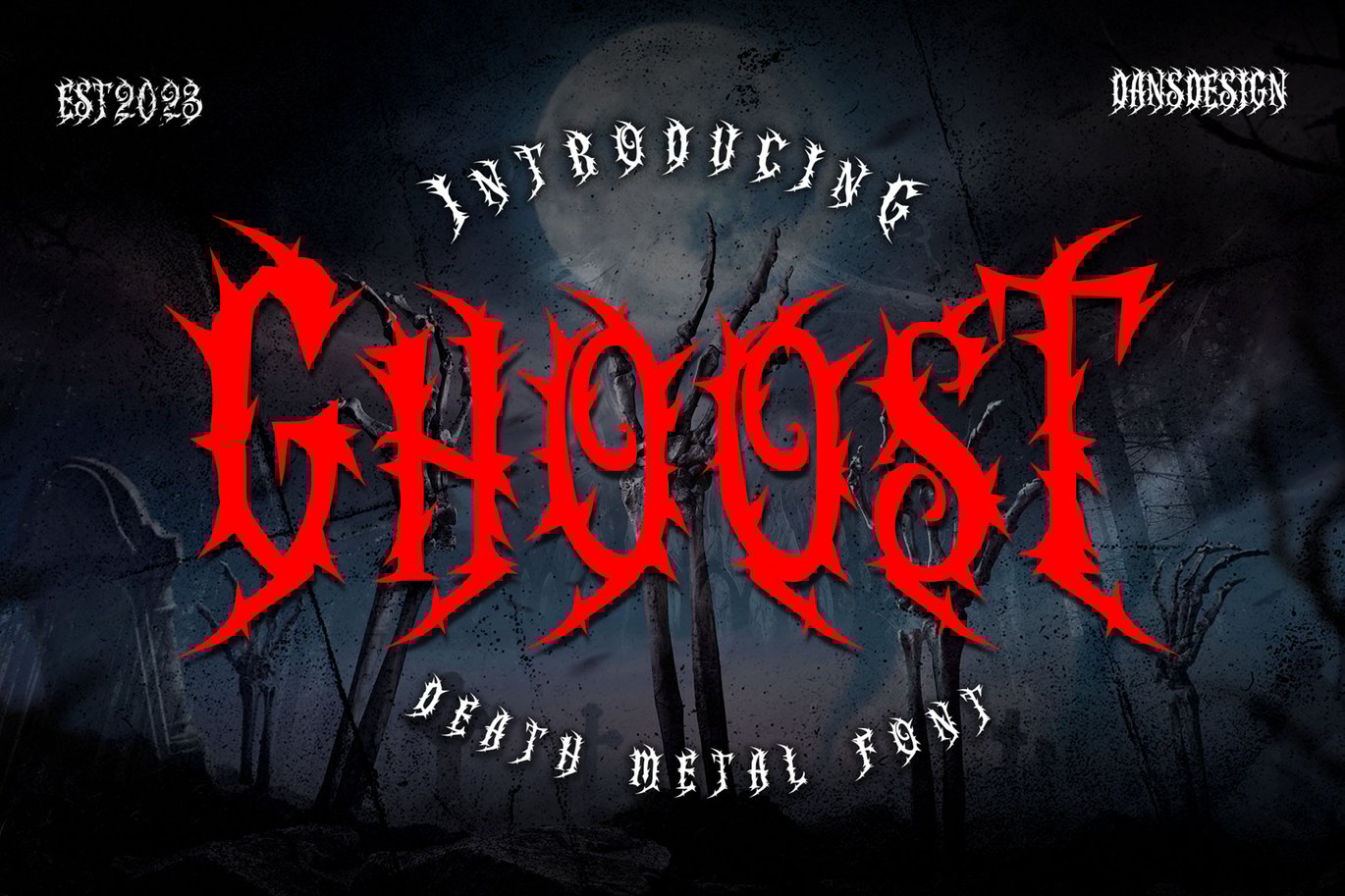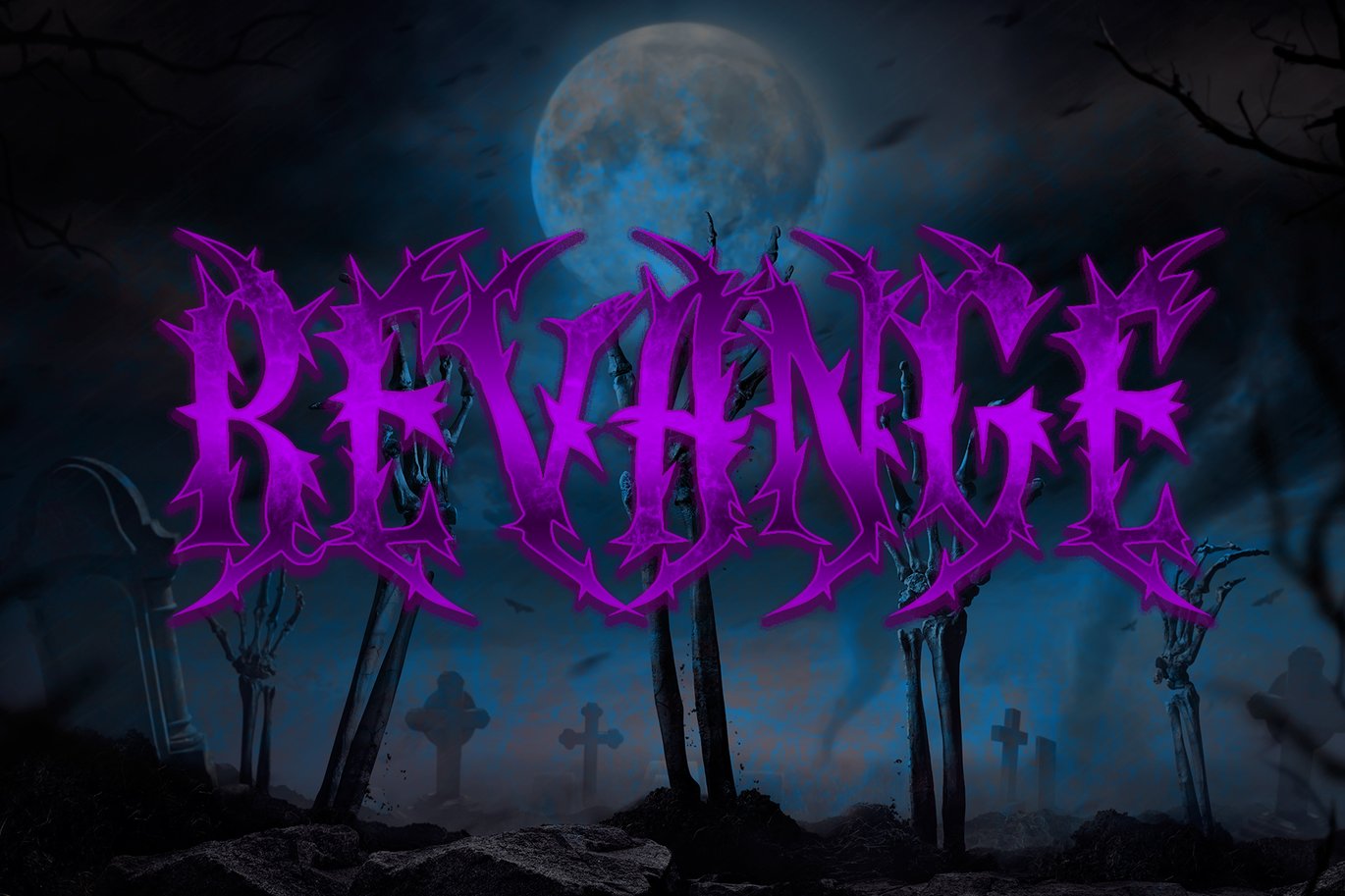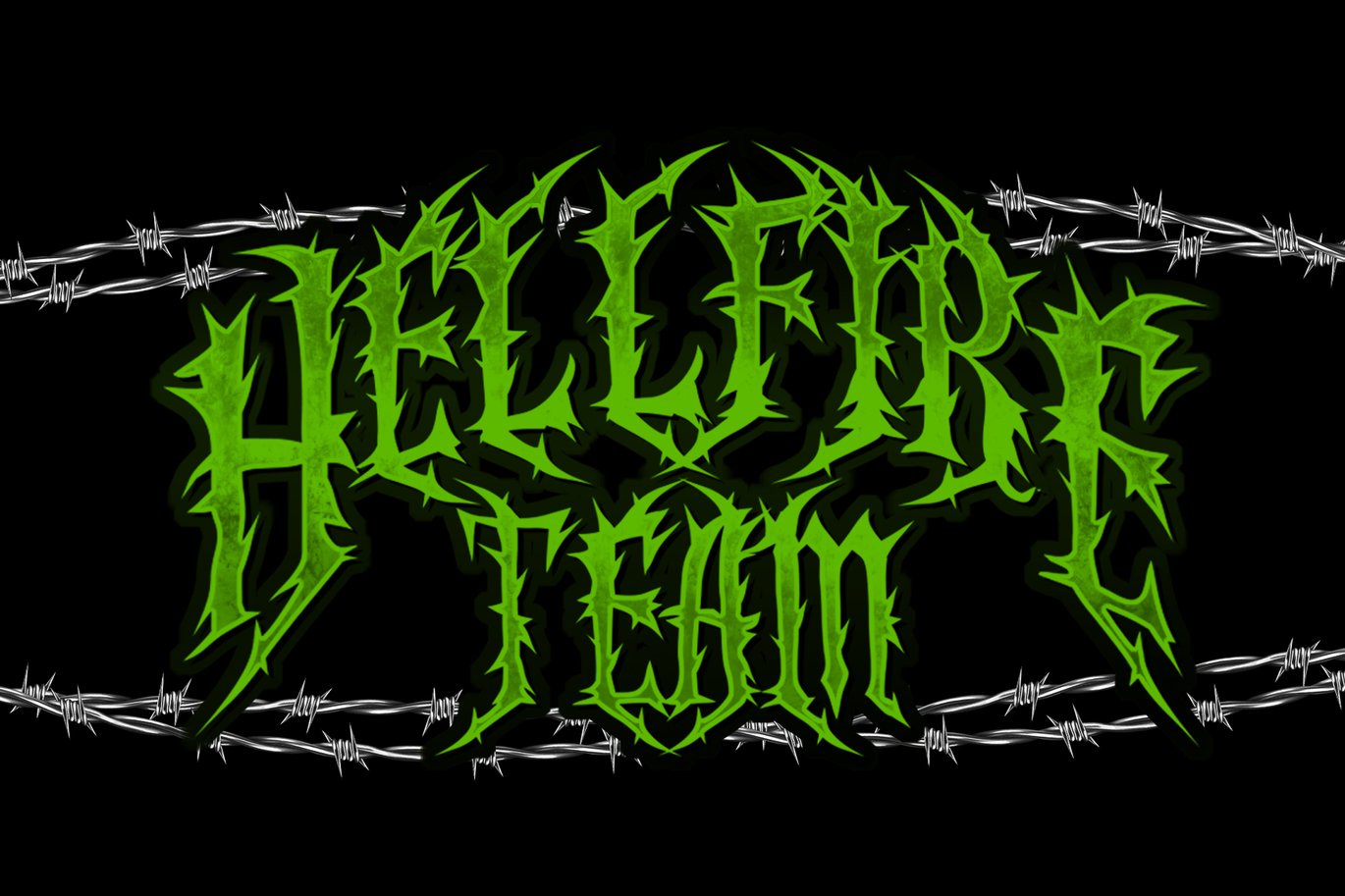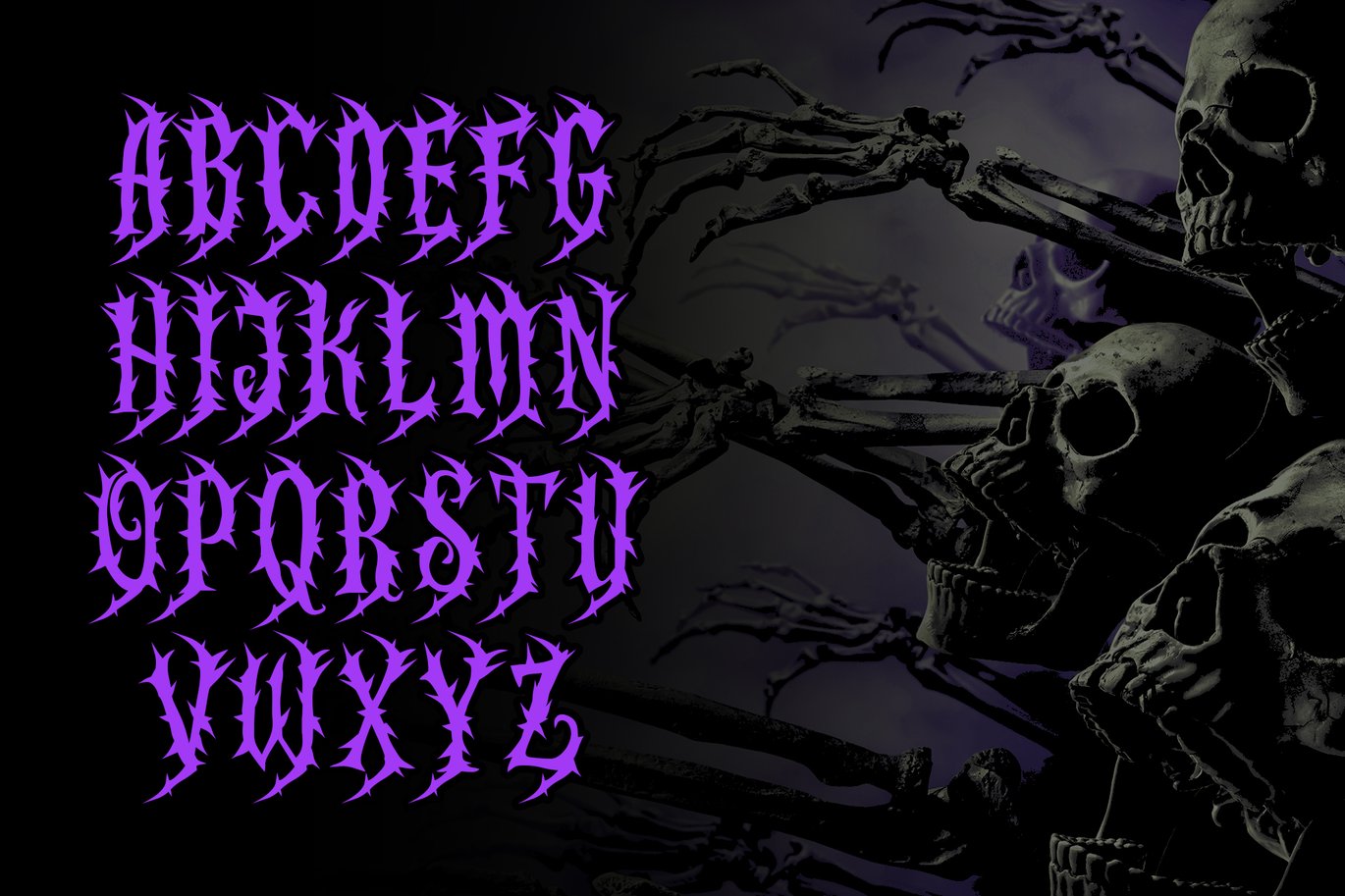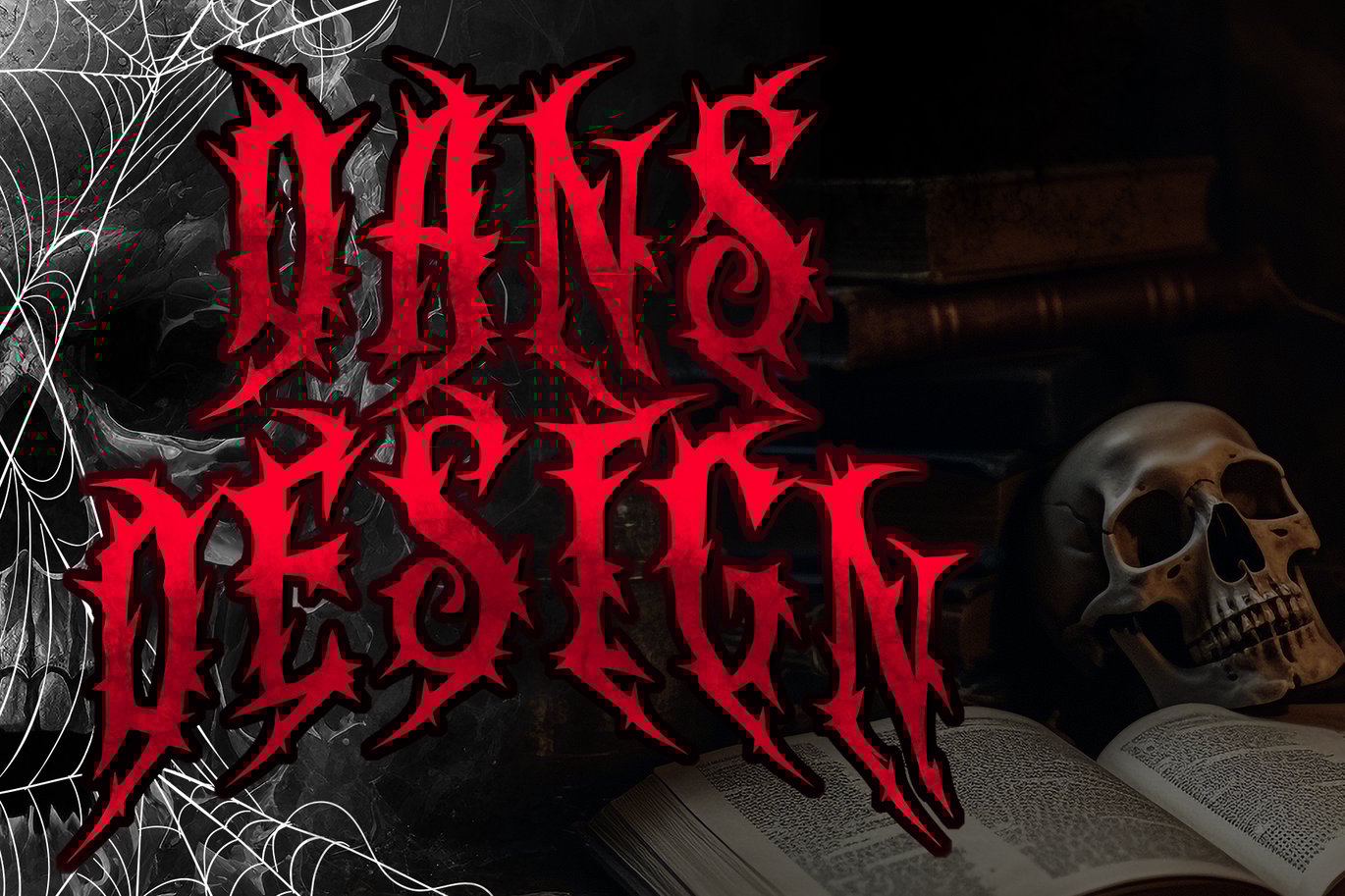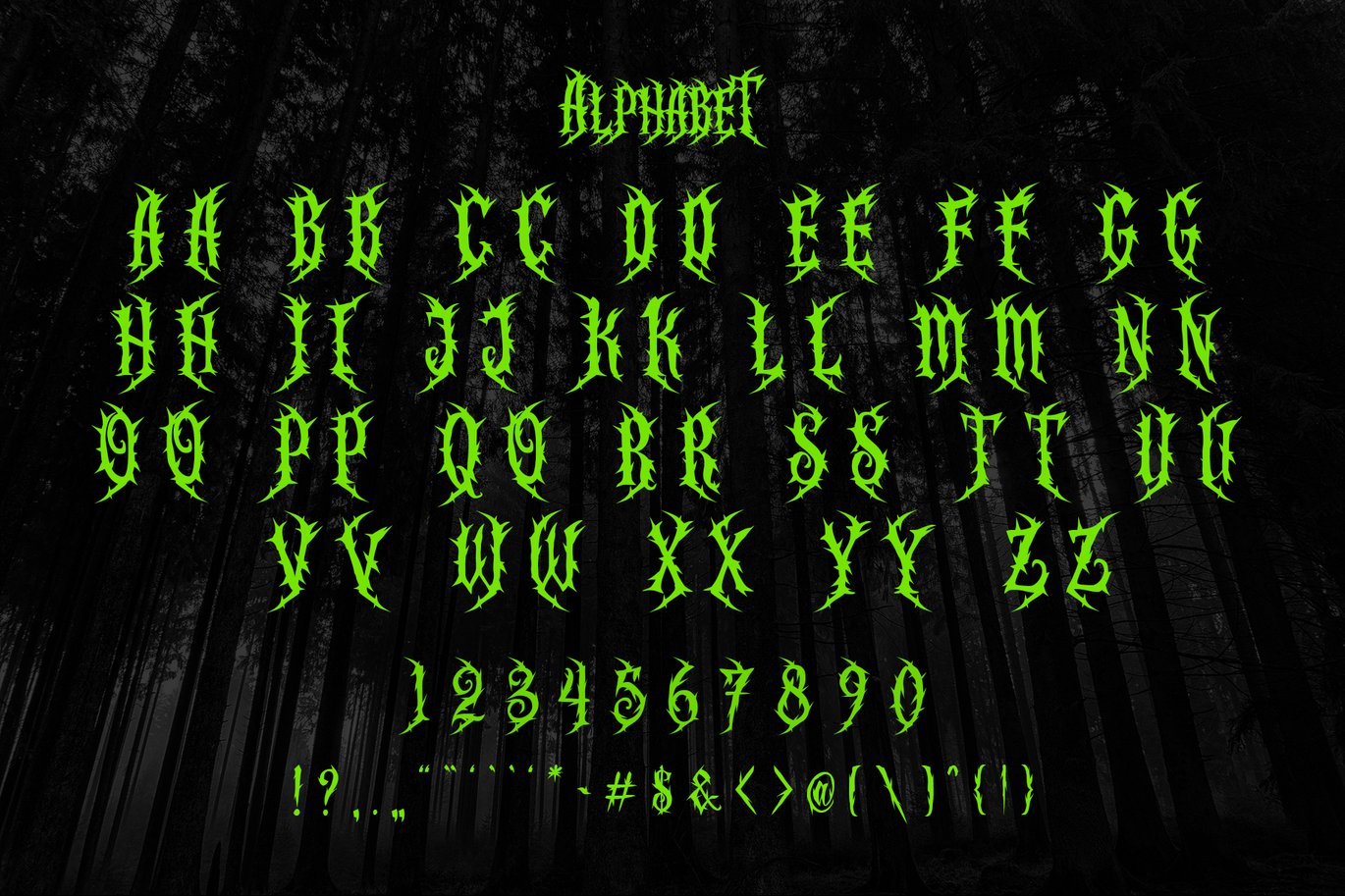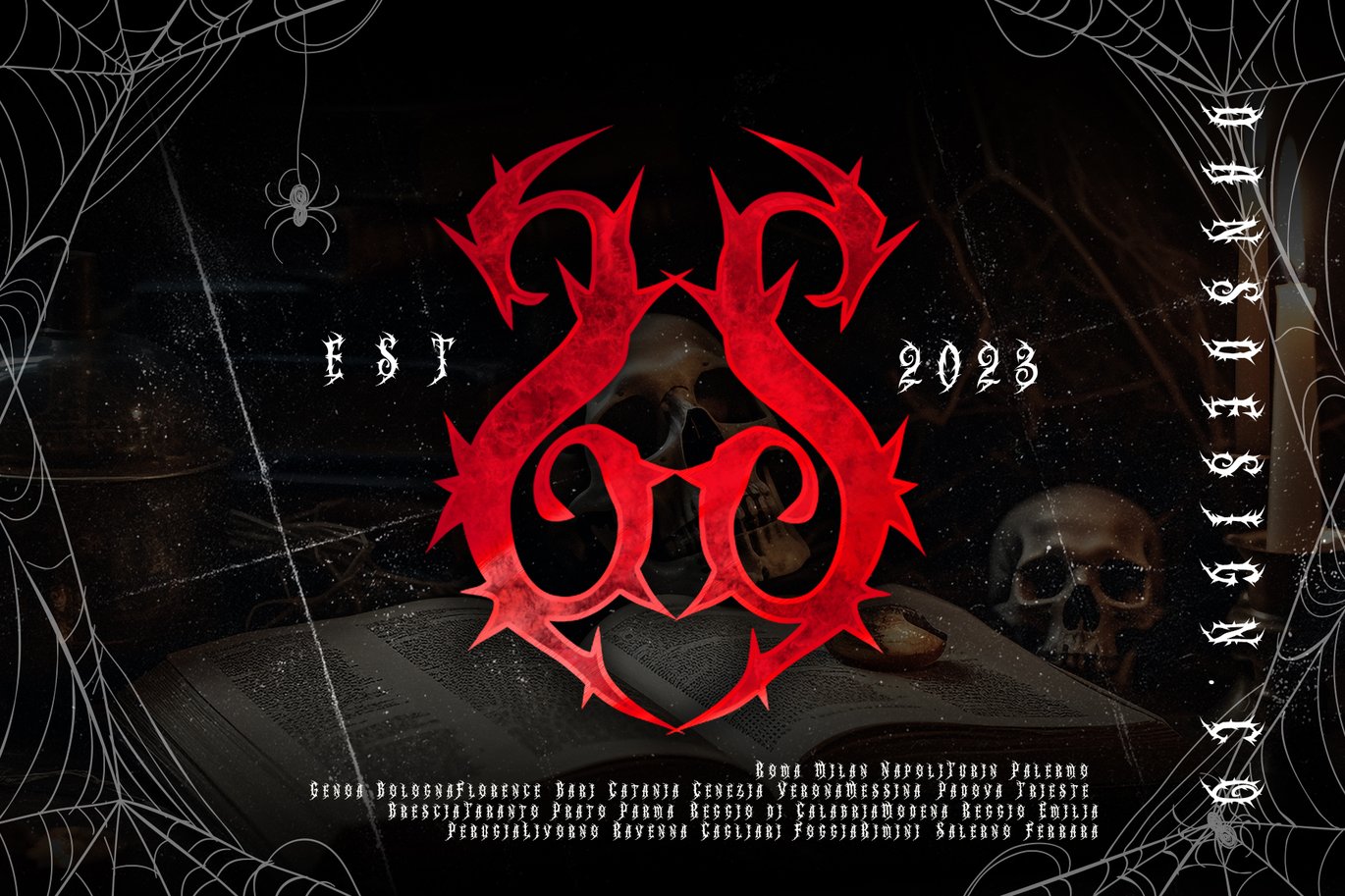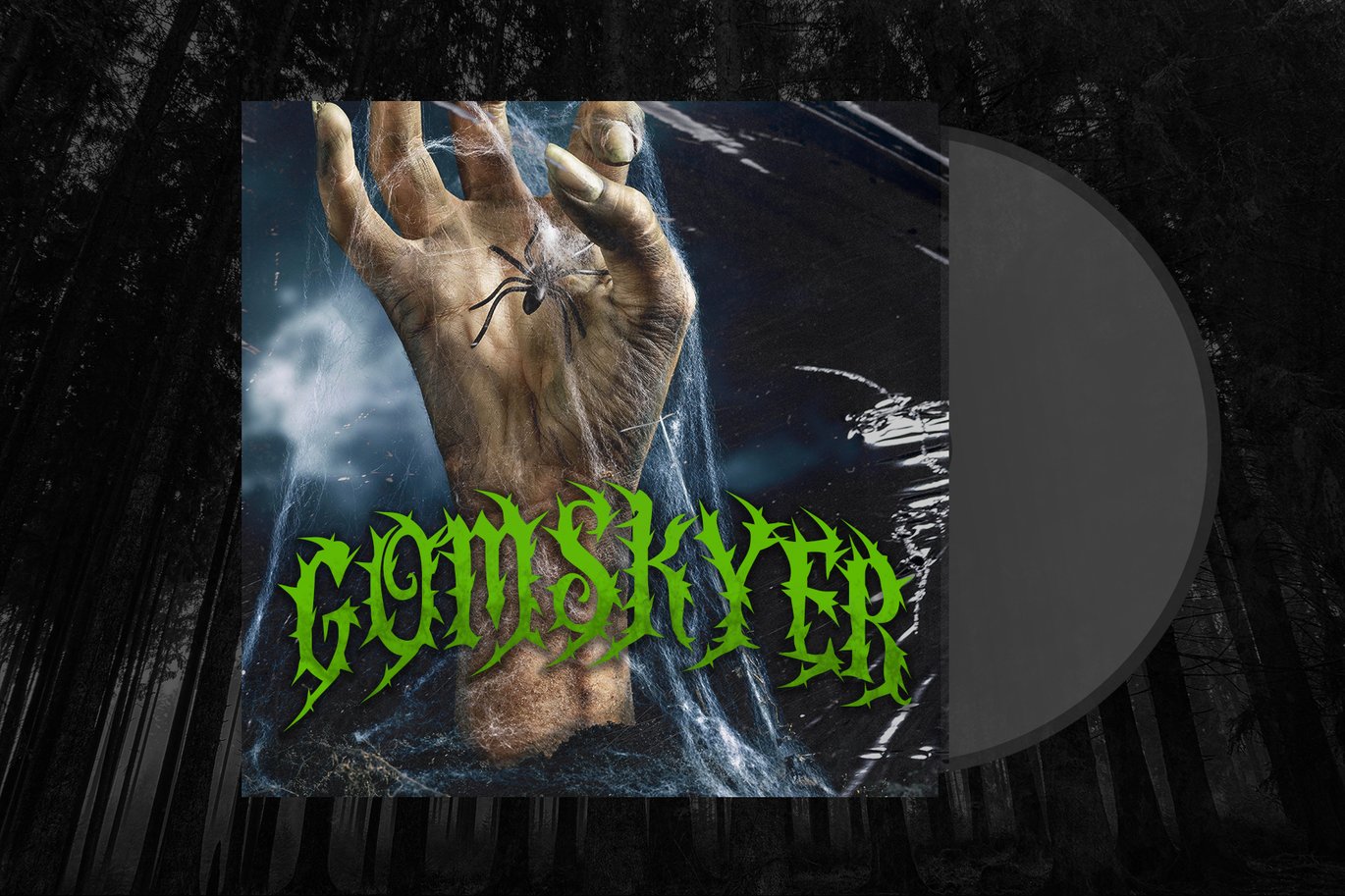
GHOOST Horror Metal Font
GHOOST Horror Metal Font distinct, highly detailed, and Horror Metal Font font. It would make a great choice for exquisite Music, Poster, retro-urban designs, tattoo business branding, logos, vintage designs, and more.